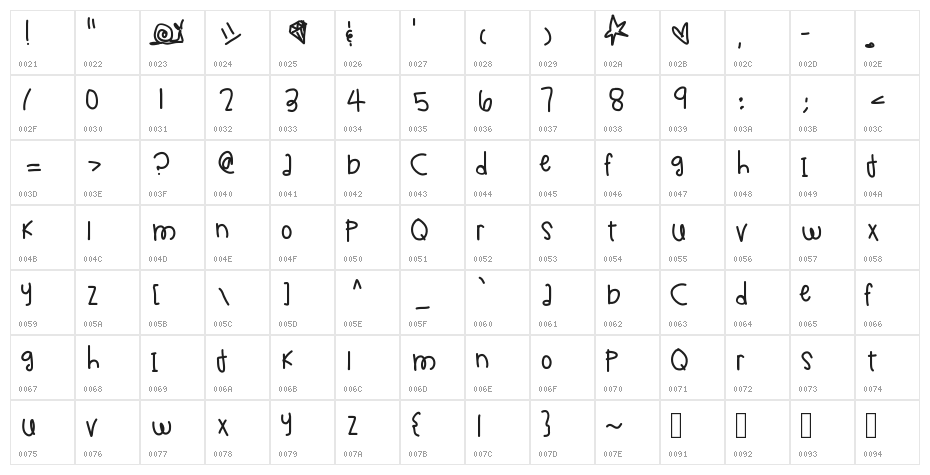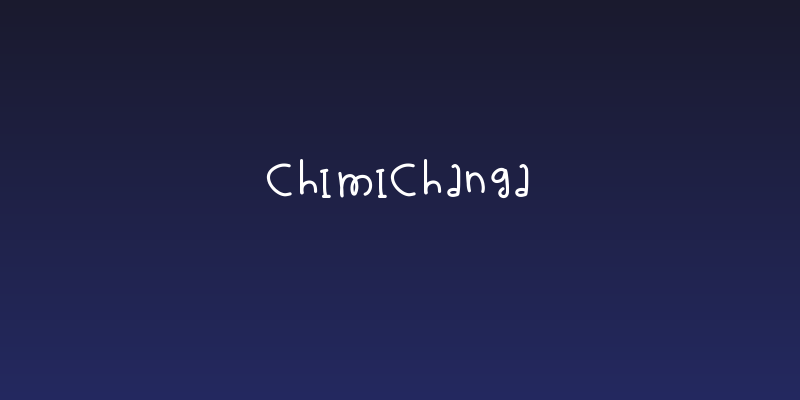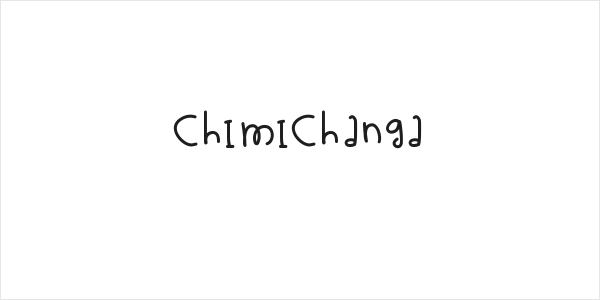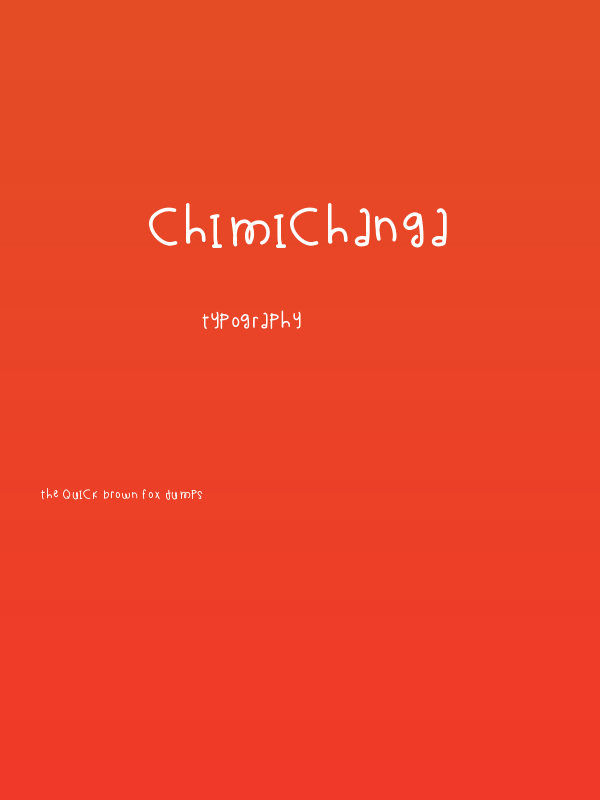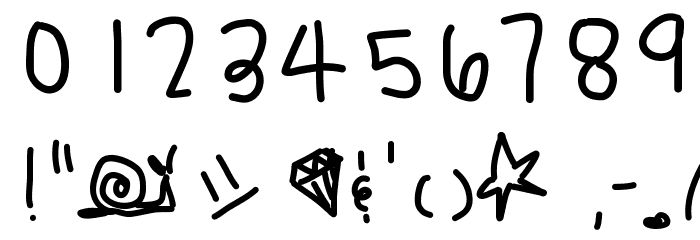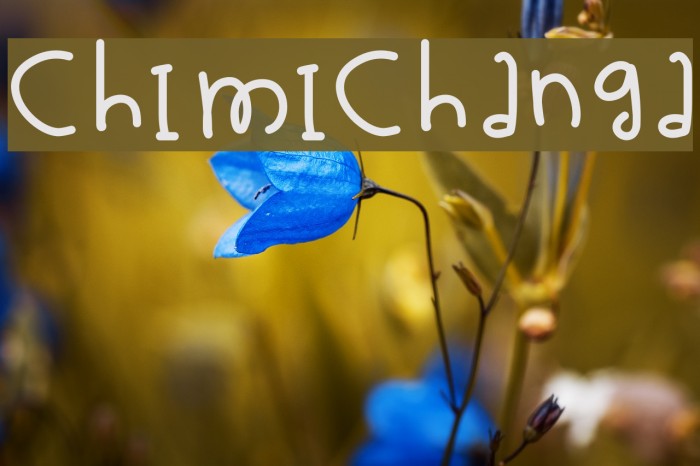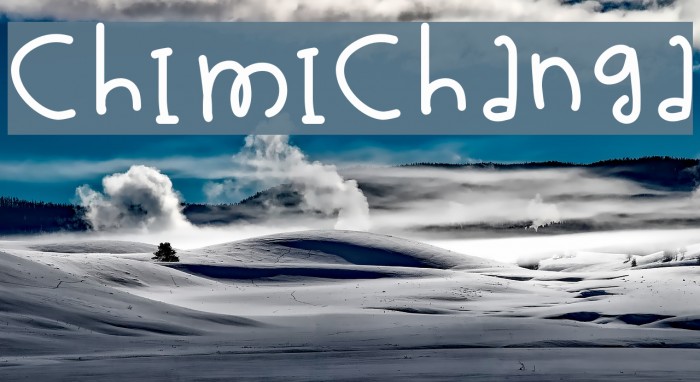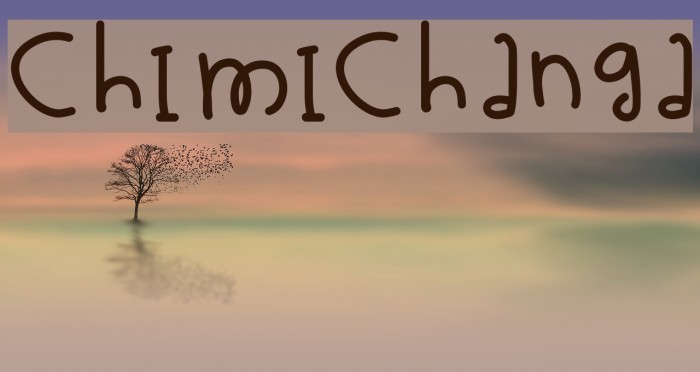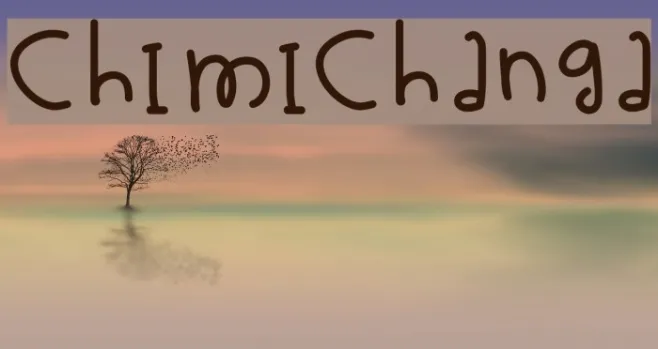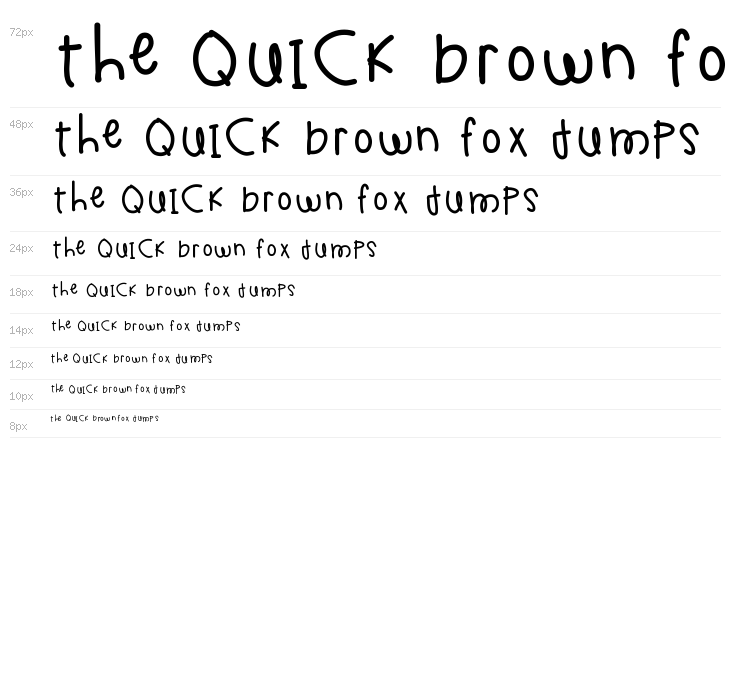
Chimichanga Font
Chimichanga Description
This playful and whimsical font features a handwritten style with a casual and friendly appearance. The letters are slightly irregular, adding a touch of personality and charm. The strokes are consistent in thickness, giving it a uniform look while maintaining a relaxed feel. The characters are rounded and smooth, with a slight tilt that enhances its informal nature. This font includes both uppercase and lowercase letters, numerals, and a variety of special characters, making it versatile for different uses. The overall design is approachable and fun, suitable for projects that require a personal touch.